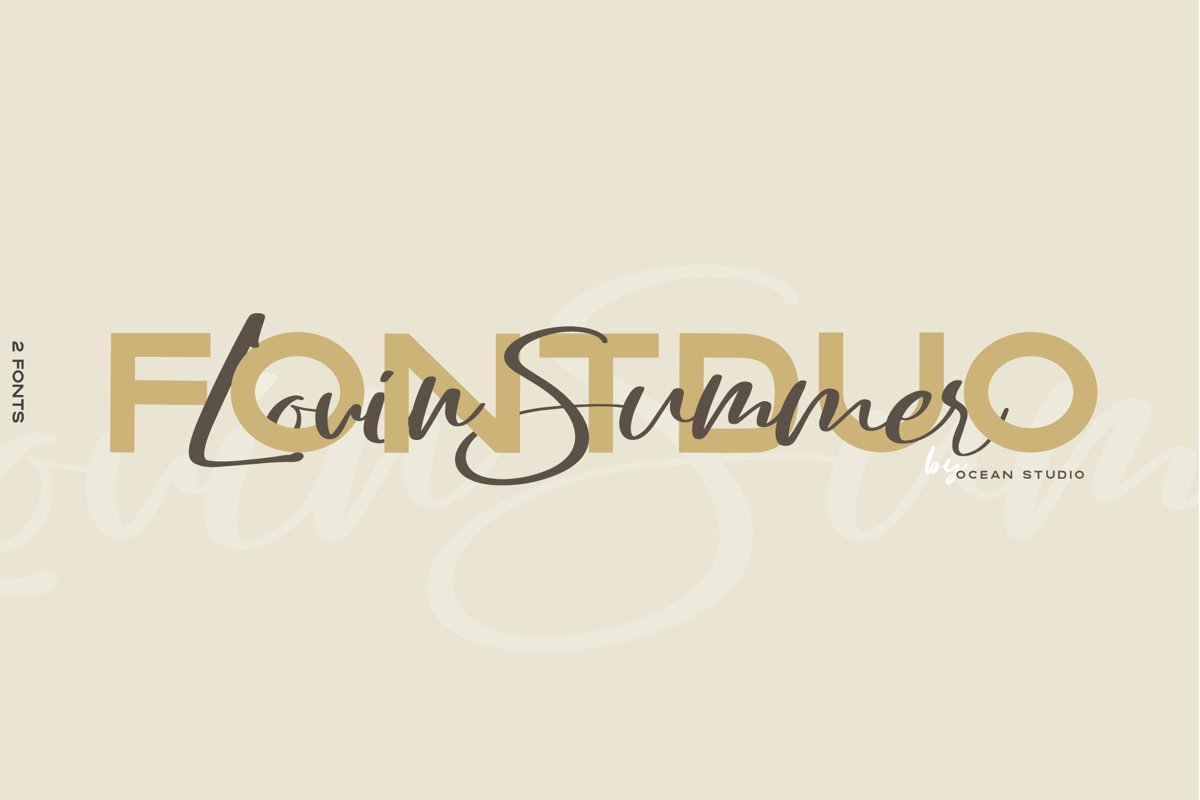
Lovin Summer | FontDuo
LovinSummerSans
LovinSummer
Lovin Summer is a beautiful Script combine with stylish strong sans. The combination of the font will make your design more beautiful and classy. This font is suitable for any design like Logo, branding, quotes, and etc.
very single letters have been carefully crafted to make your text looks beautiful